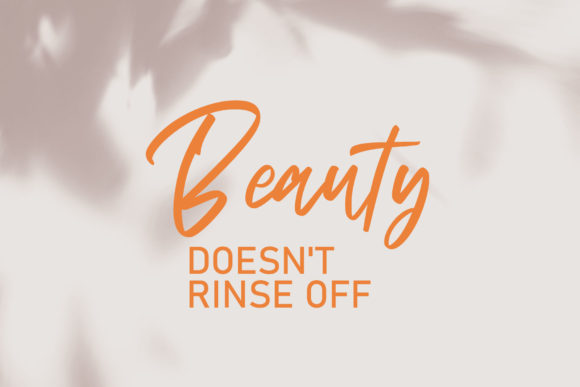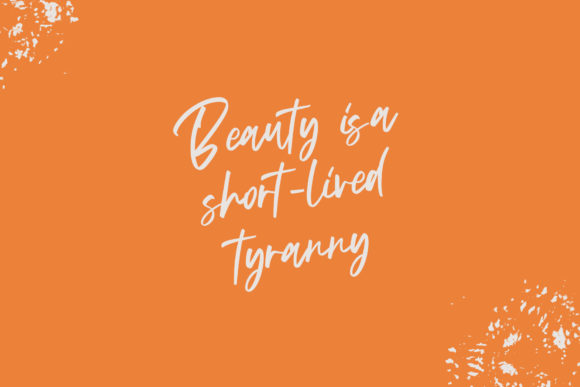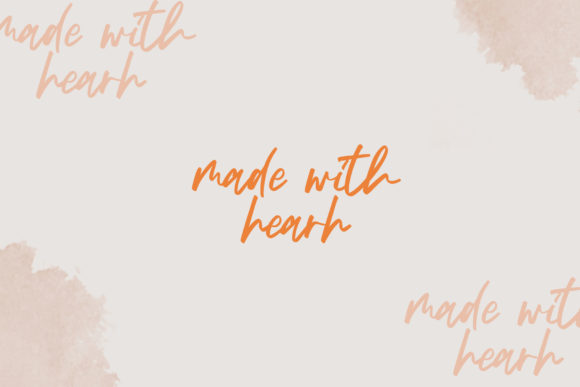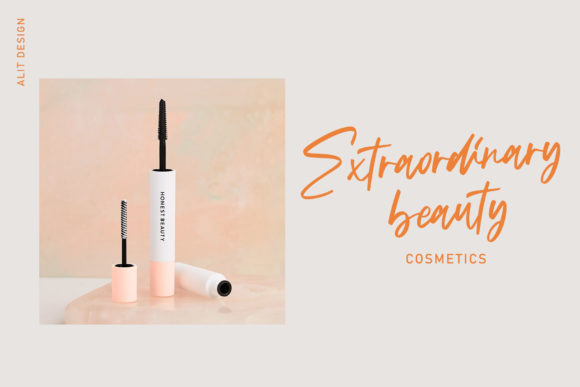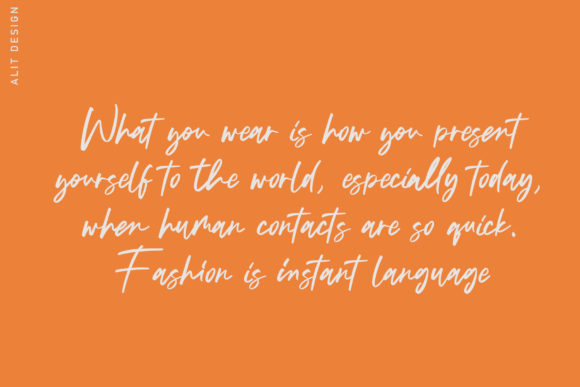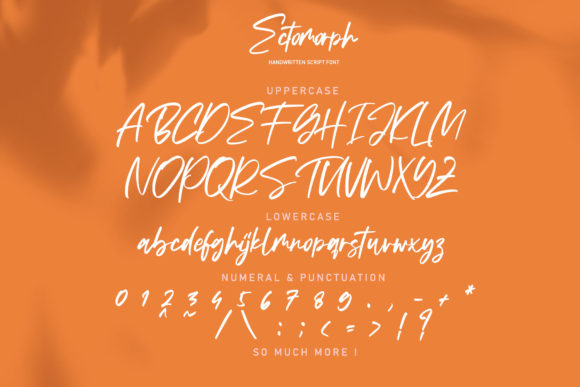
Ectomorph Font: Elevate Your Designs with Elegance and Sophistication
Are you a designer or crafter looking for a font that exudes elegance, sophistication, and a touch of modernity? Look no further than Ectomorph, an exquisite handwritten font that is sure to become your new favorite. With its classy calligraphic influences and fresh, contemporary feel, Ectomorph is the perfect addition to any design project.
The Story Behind Ectomorph
Ectomorph is more than just a font – it’s a work of art. Masterfully designed to capture the essence of handwritten calligraphy, Ectomorph boasts a unique and captivating charm that will leave a lasting impression on your audience. Whether you’re working on a branding project, packaging design, or social media graphics, Ectomorph is the perfect choice to elevate your designs to new heights.
What Makes Ectomorph Special?
So, what sets Ectomorph apart from other fonts? Here are just a few of its standout features:
- Classy Calligraphic Influences: Ectomorph’s roots in traditional calligraphy are evident in its elegant strokes and refined letterforms.
- Contemporary and Fresh: Despite its classic influences, Ectomorph feels modern and fresh, making it perfect for designers who want to create something new and exciting.
- Handwritten Charm: Ectomorph’s handwritten nature gives it a unique, personal touch that will make your designs stand out from the crowd.
- Versatile: Whether you’re working on a formal or informal project, Ectomorph adapts seamlessly to any design style or tone.
How to Use Ectomorph in Your Designs
Ectomorph is an incredibly versatile font that can be used in a wide range of design applications. Here are just a few ideas to get you started:
- Branding and Logo Design: Use Ectomorph to create a sophisticated and memorable brand identity that will leave a lasting impression on your customers.
- Packaging Design: Add a touch of elegance to your product packaging with Ectomorph, perfect for luxury brands or high-end products.
- Social Media Graphics: Elevate your social media presence with eye-catching graphics featuring Ectomorph, guaranteed to grab attention and drive engagement.
- Stationery and Invitations: Create beautiful, bespoke stationery and invitations with Ectomorph, perfect for weddings, events, or corporate functions.
Tips and Tricks for Getting the Most Out of Ectomorph
To truly make the most of Ectomorph, here are a few expert tips to keep in mind:
- Experiment with Font Sizes: Ectomorph looks stunning in a range of font sizes, from large headings to smaller body text.
- Play with Color: Ectomorph’s elegant strokes and refined letterforms look beautiful in a range of colors, from classic black and white to bold, bright hues.
- Mix and Match with Other Fonts: Combine Ectomorph with other fonts to create a unique and visually appealing typography style.
In conclusion, Ectomorph is a truly exceptional font that is sure to become a favorite among designers and crafters. With its exquisite handwritten charm, classy calligraphic influences, and fresh, contemporary feel, Ectomorph is the perfect choice for anyone looking to elevate their designs to new heights. So why wait? Fall in love with Ectomorph and bring your projects to life with elegance, sophistication, and style.